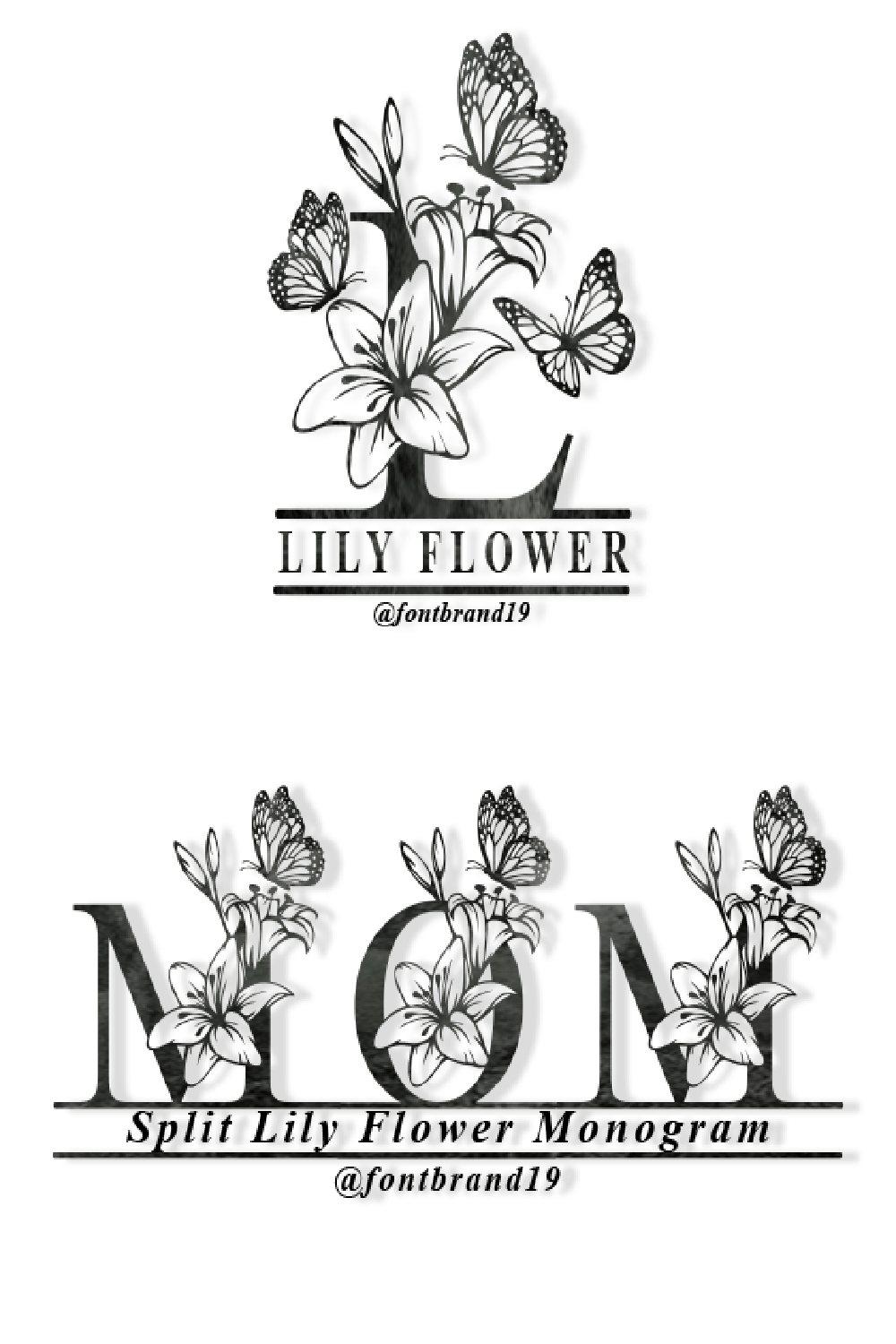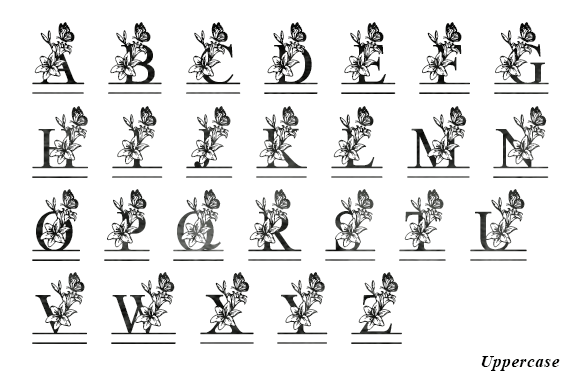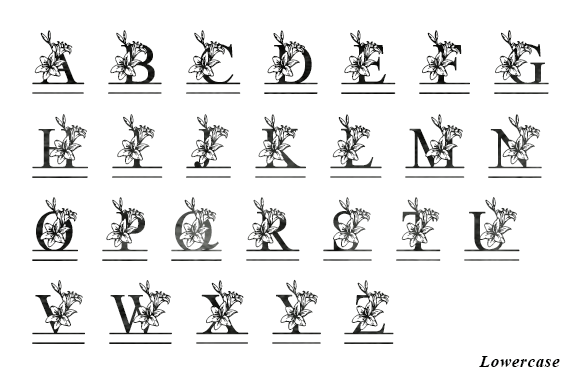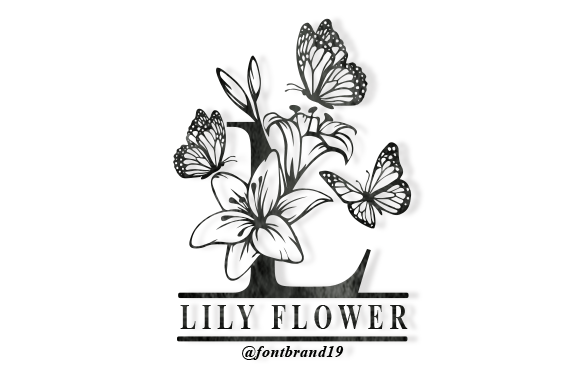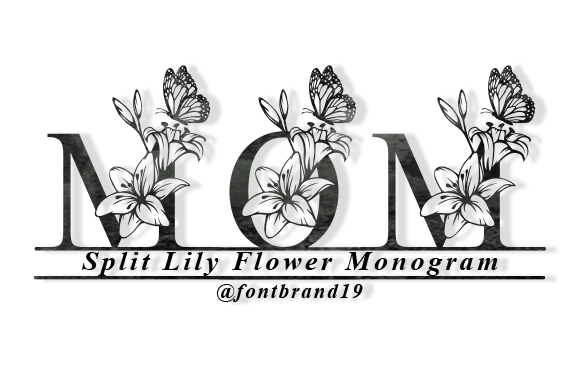
Split Lily Flower Monogram Font
About the Split Lily Flower Monogram Font
We are excited to introduce Split Lily Flower Monogram Font, a must-have typeface for any serious designer. Split Lily Flower Monogram is an elegant decorative font, featuring lovely ornaments. Fall in love with its authentic feel and use it to create gorgeous wedding invitations, beautiful stationary art, eye-catching social media posts, and cute greeting cards.